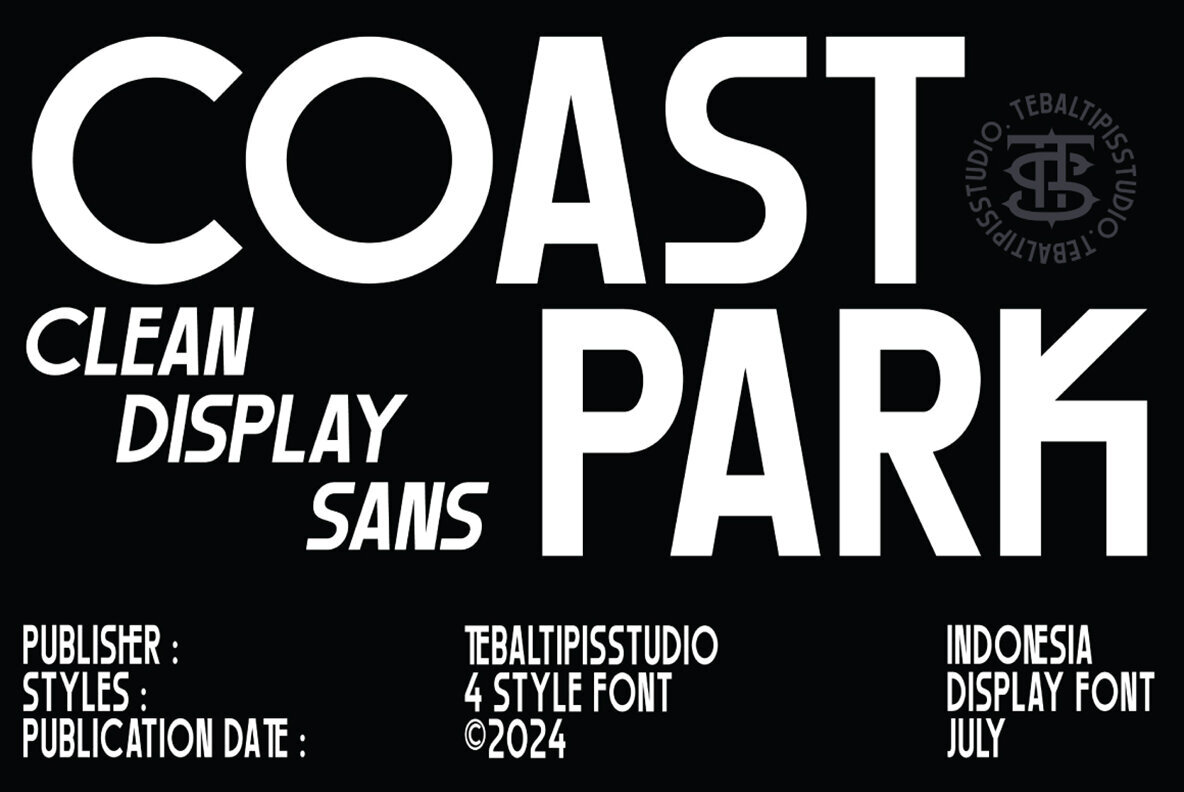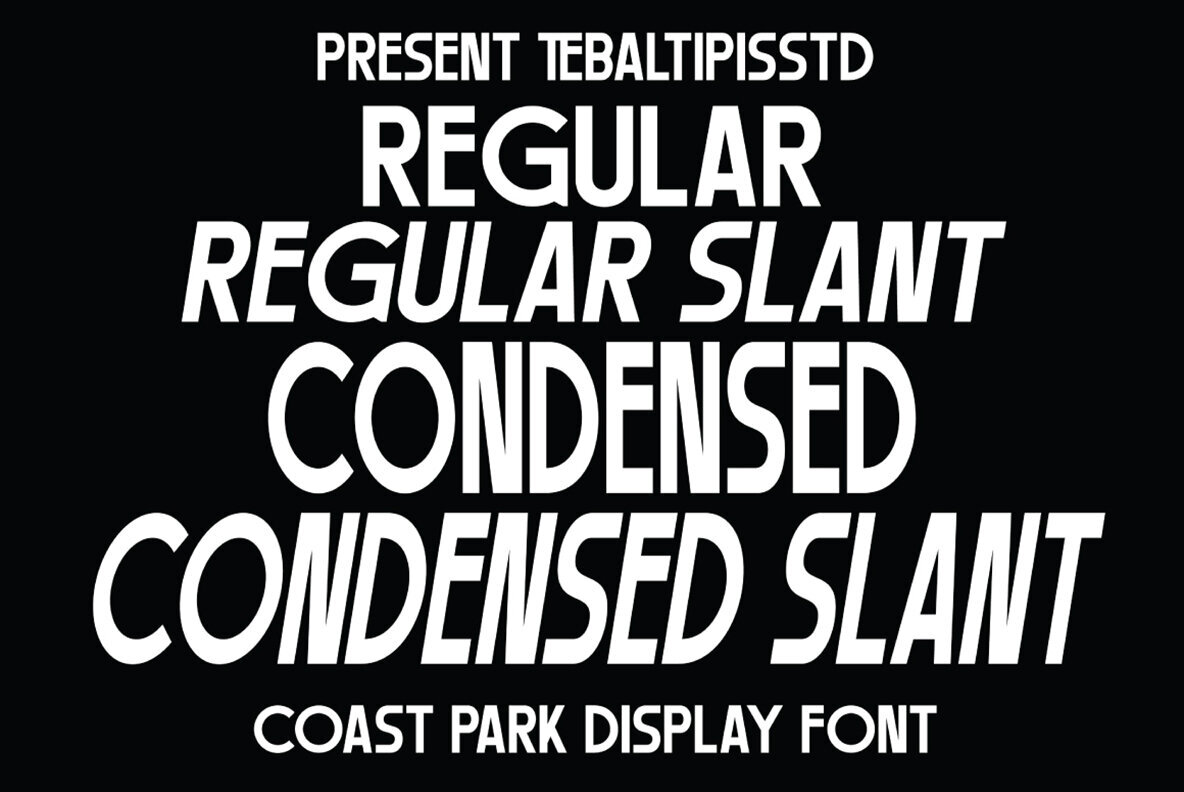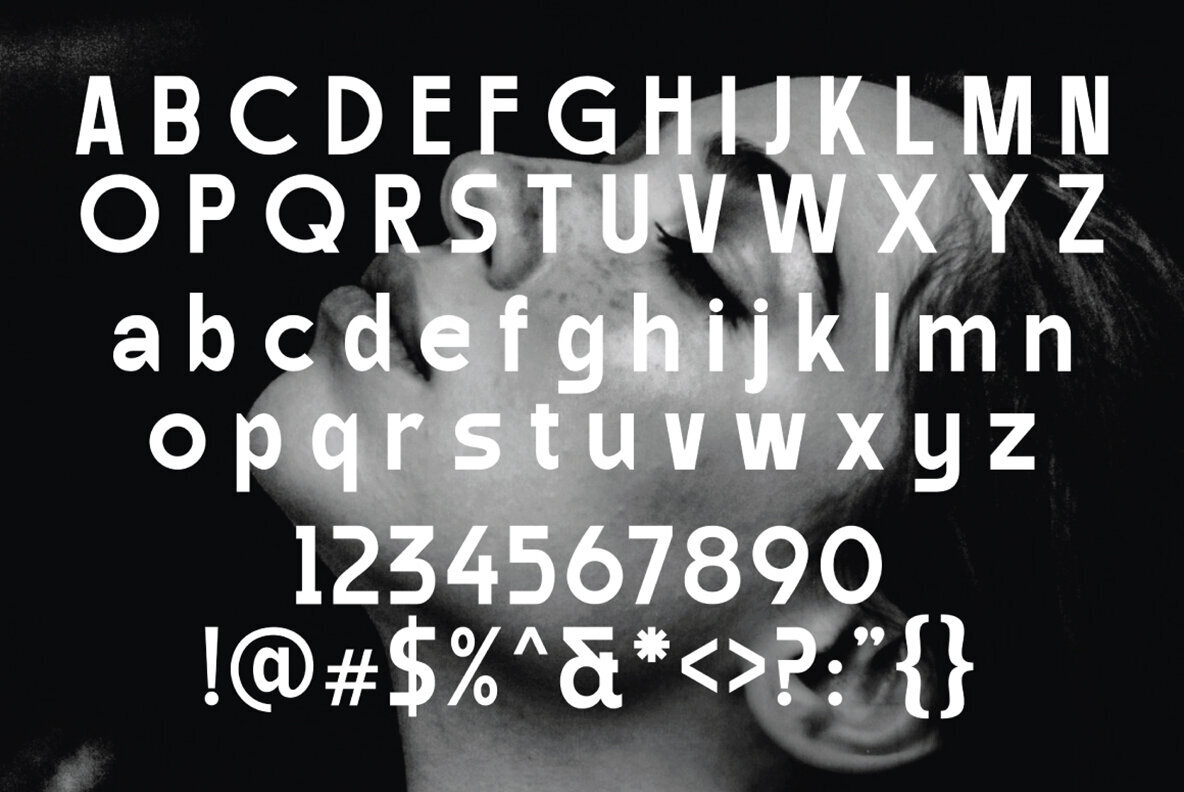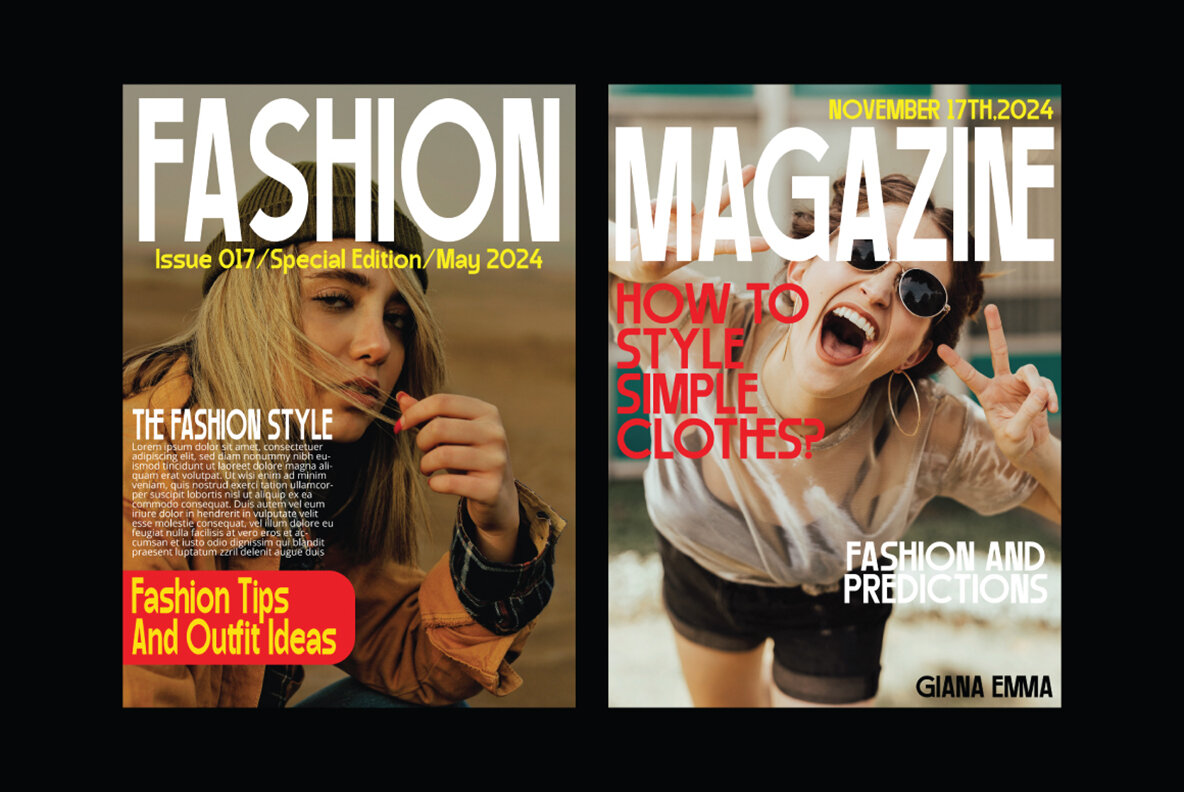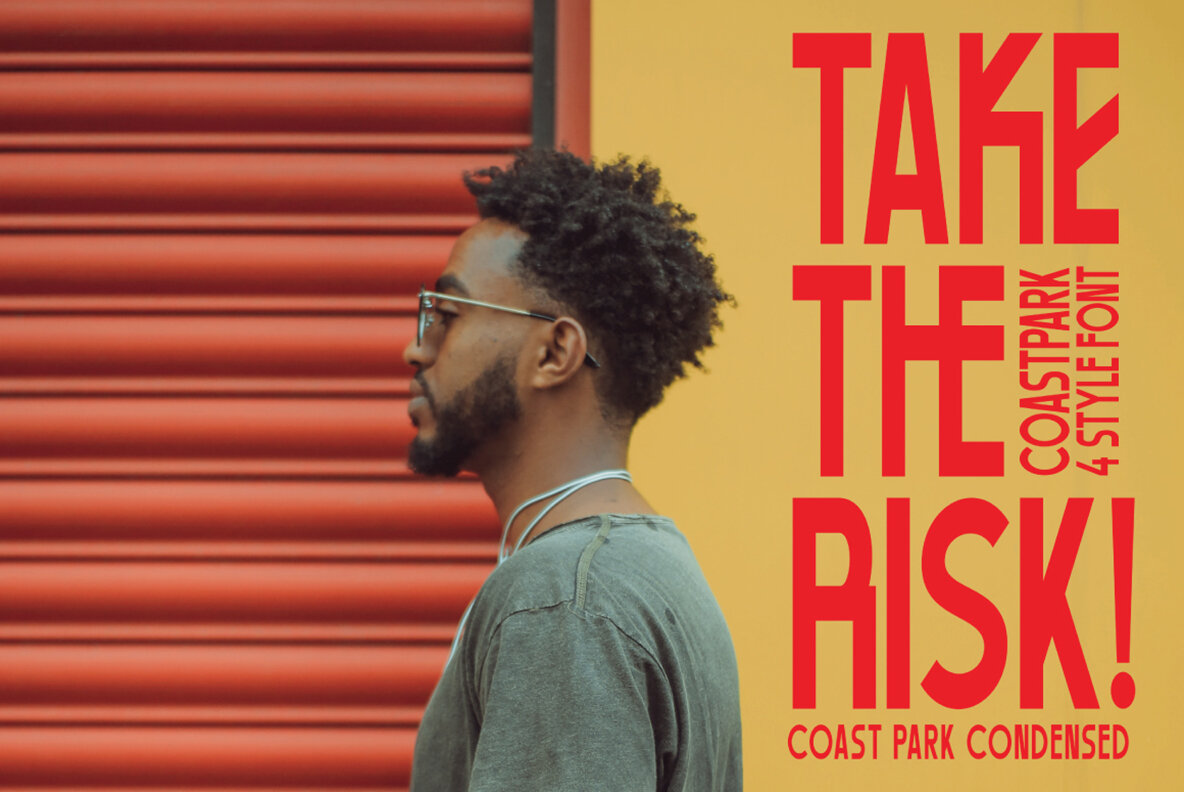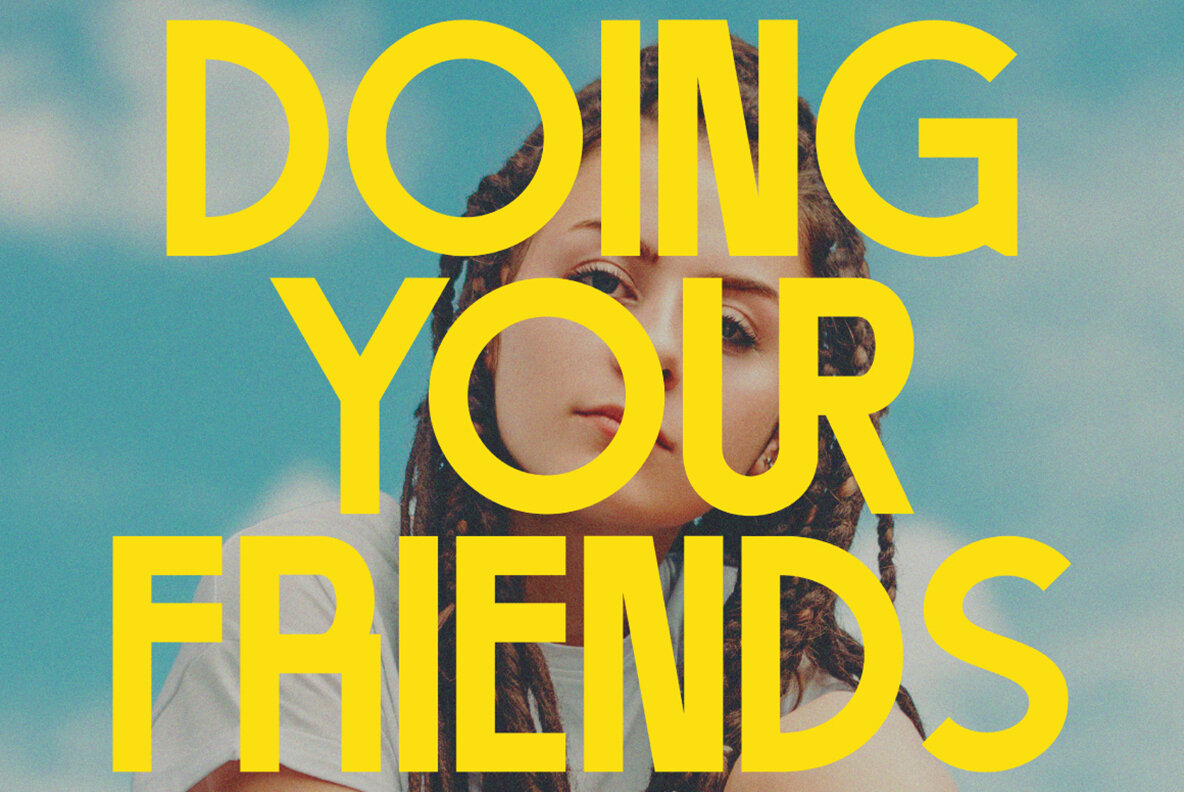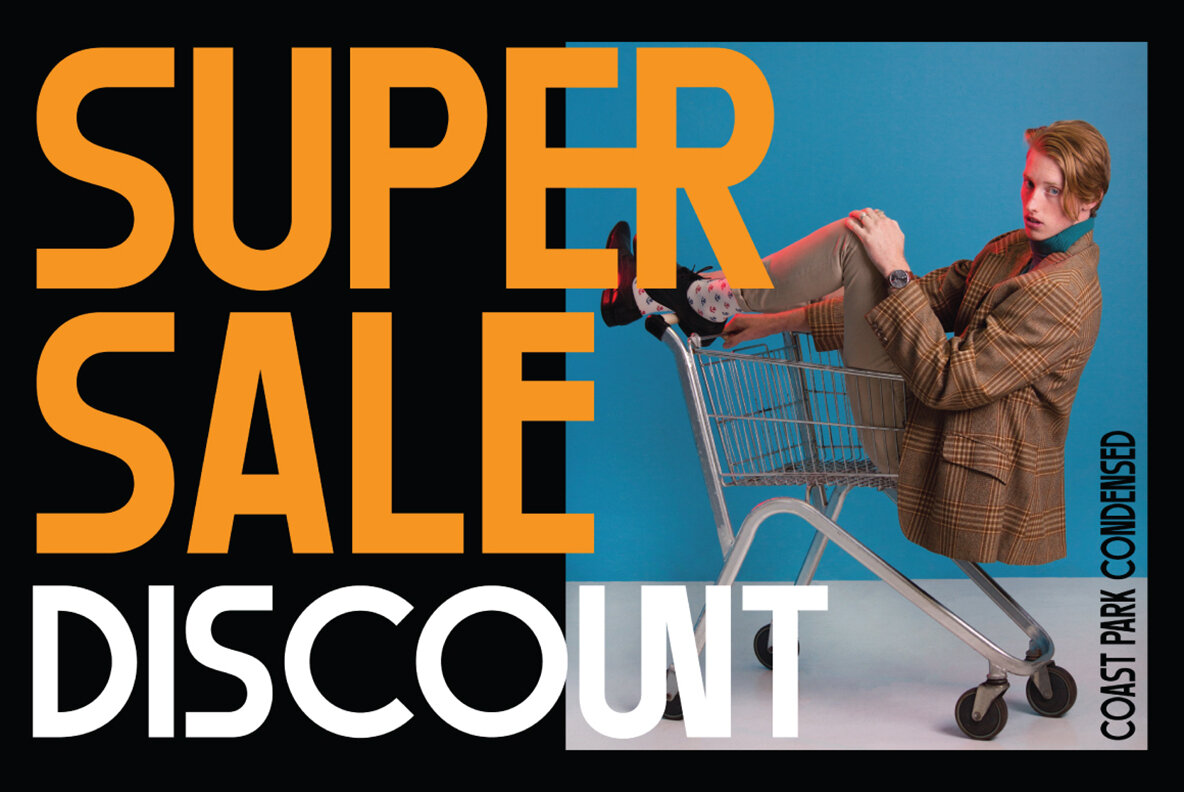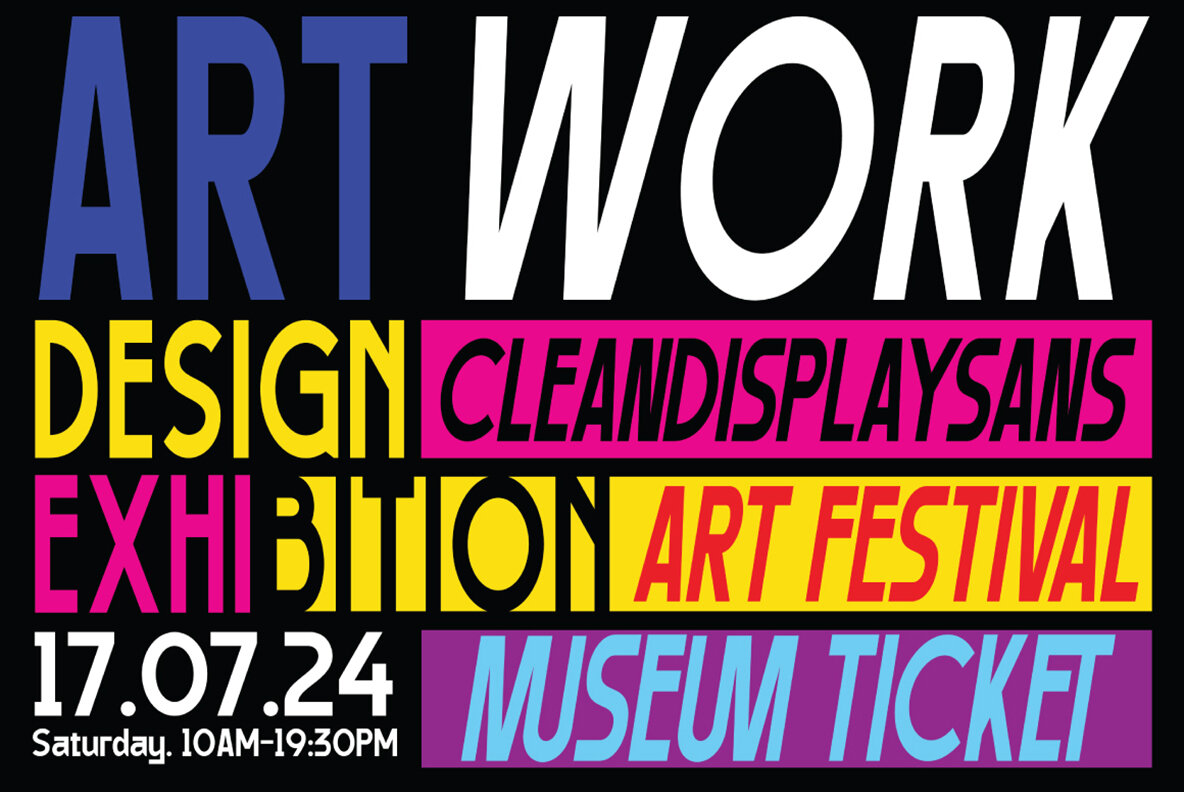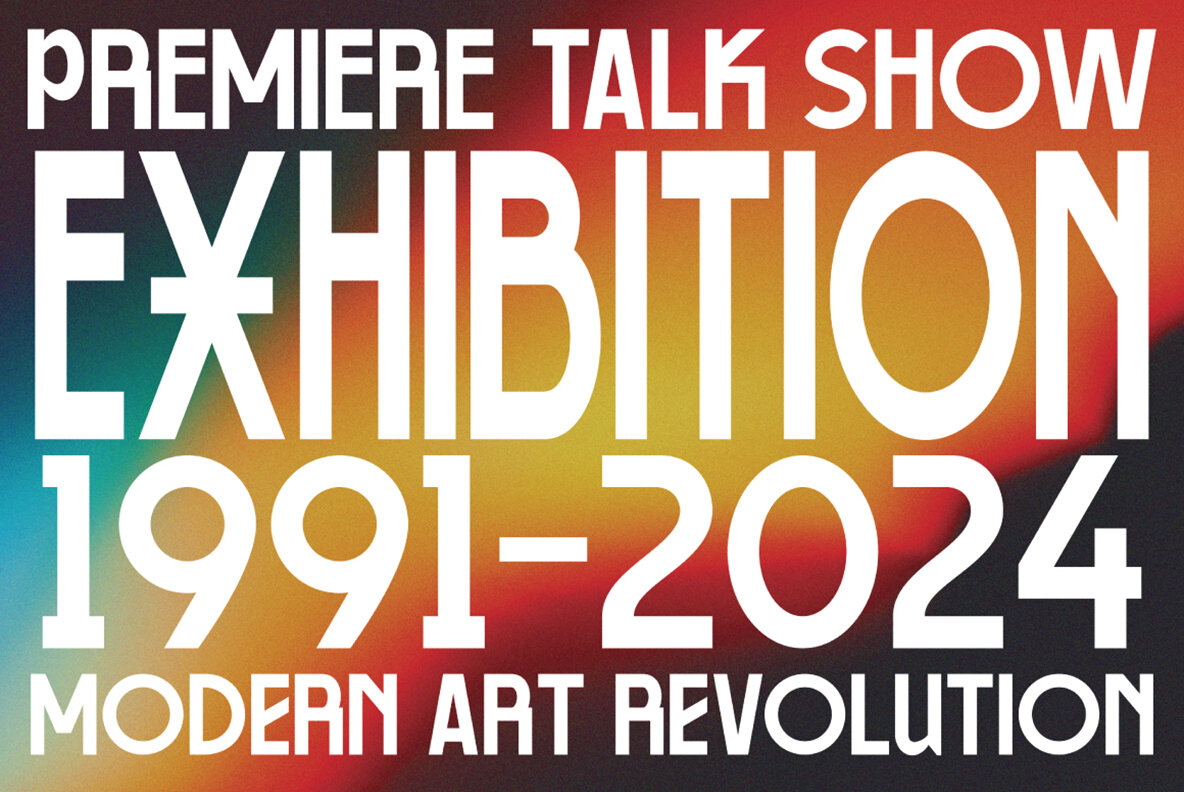
Coast Park Font
Coast Park is a contemporary sans serif that offers a straightforward interpretation of the English humanist sans, gently blending rigid tones over a warm structure. Available in four styles, it features a Condensed Slant set. Carefully crafted with traits flirting with geometry, this typeface is a powerful workhorse. Its versatility makes it ideal for paragraphs and larger typesettings, suitable for branding, signage, editorial, and more.Coast Park: A Versatile Sans Serif With a Humanist Touch